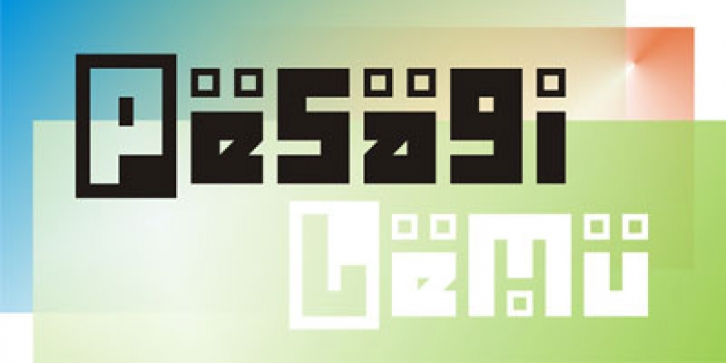
Actually this font does not have capital letters. Uppercase only the negative form of the lowercase. But then I developed complete glyph.
This font is perfect as an accent.